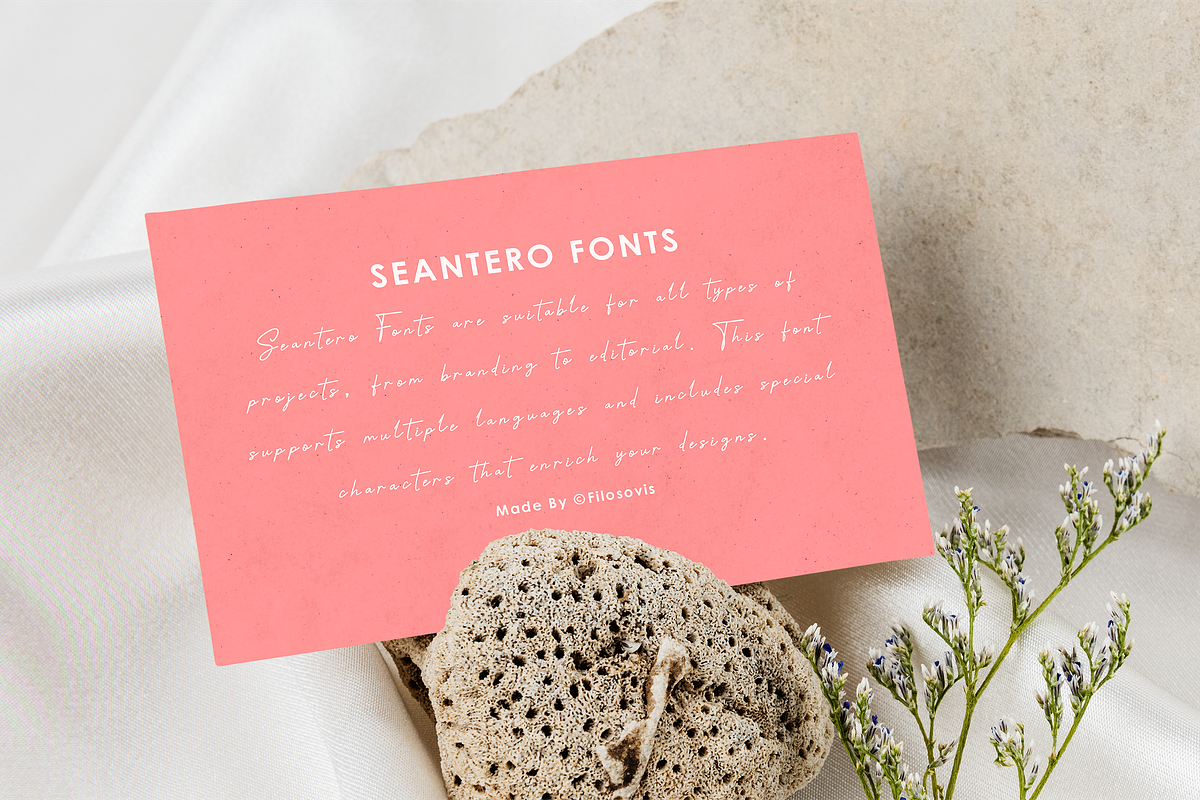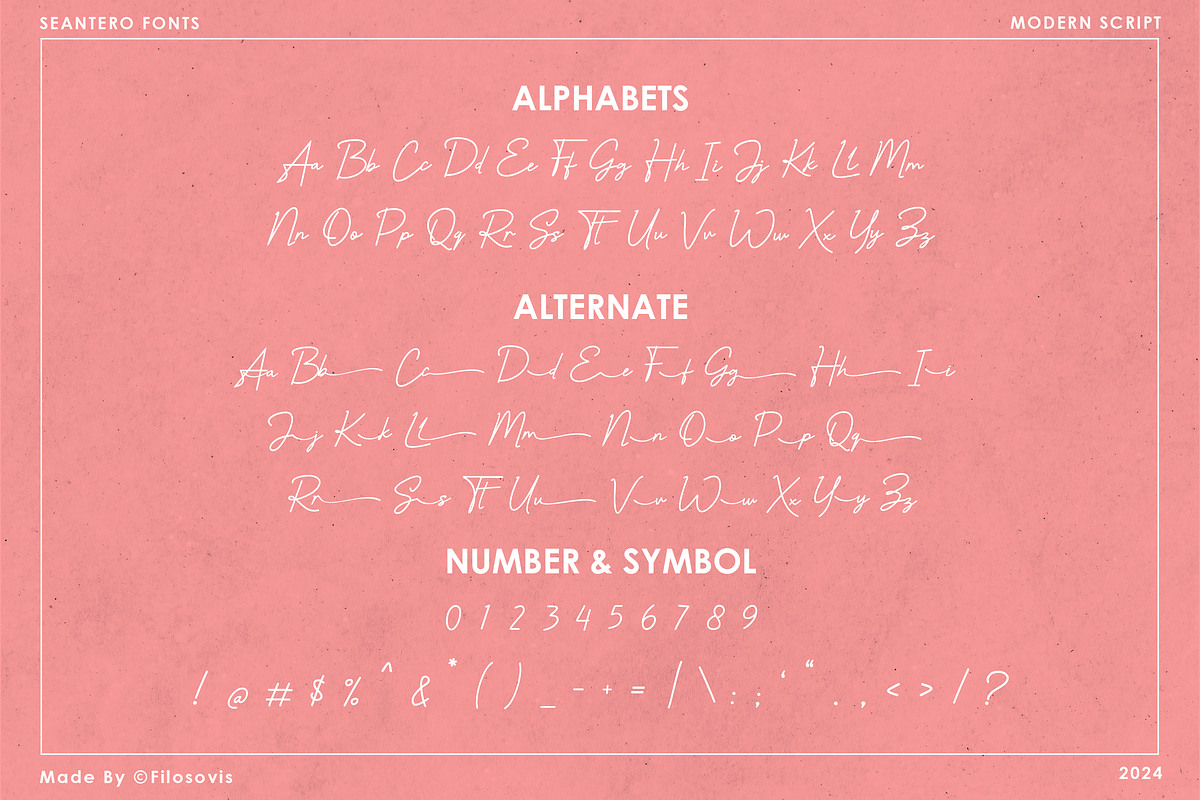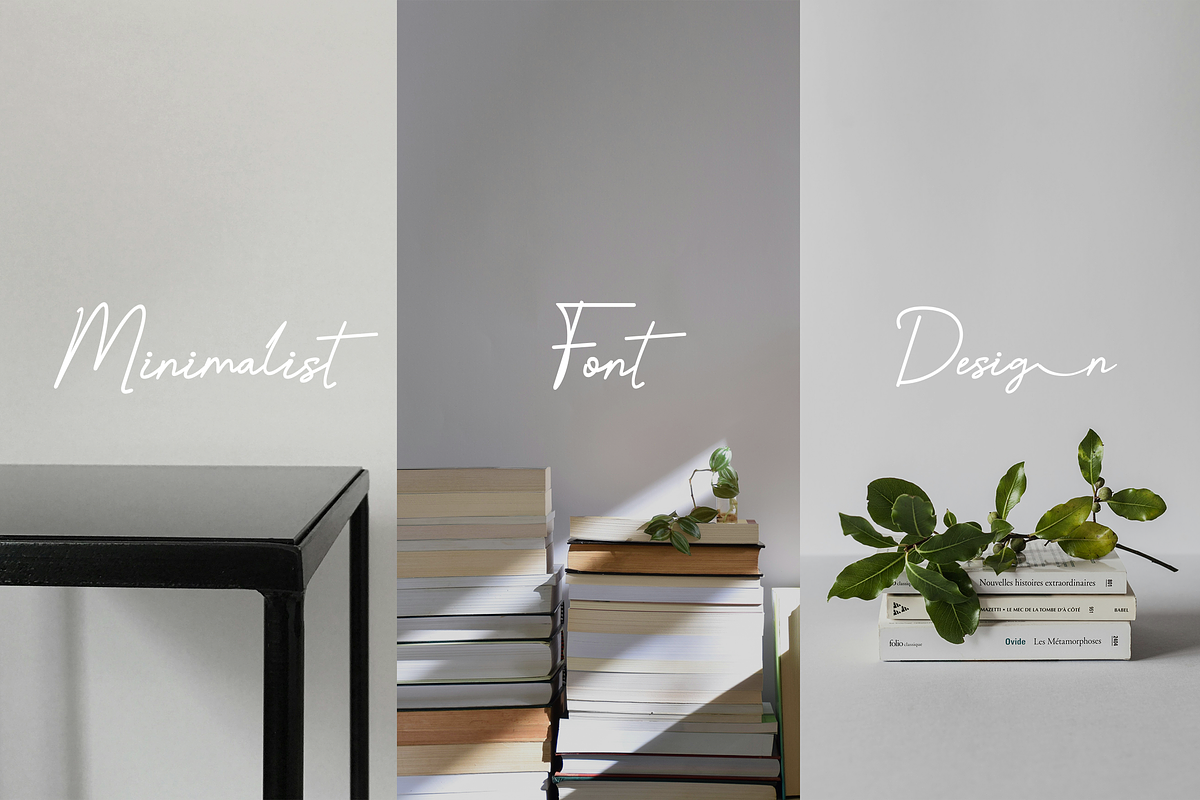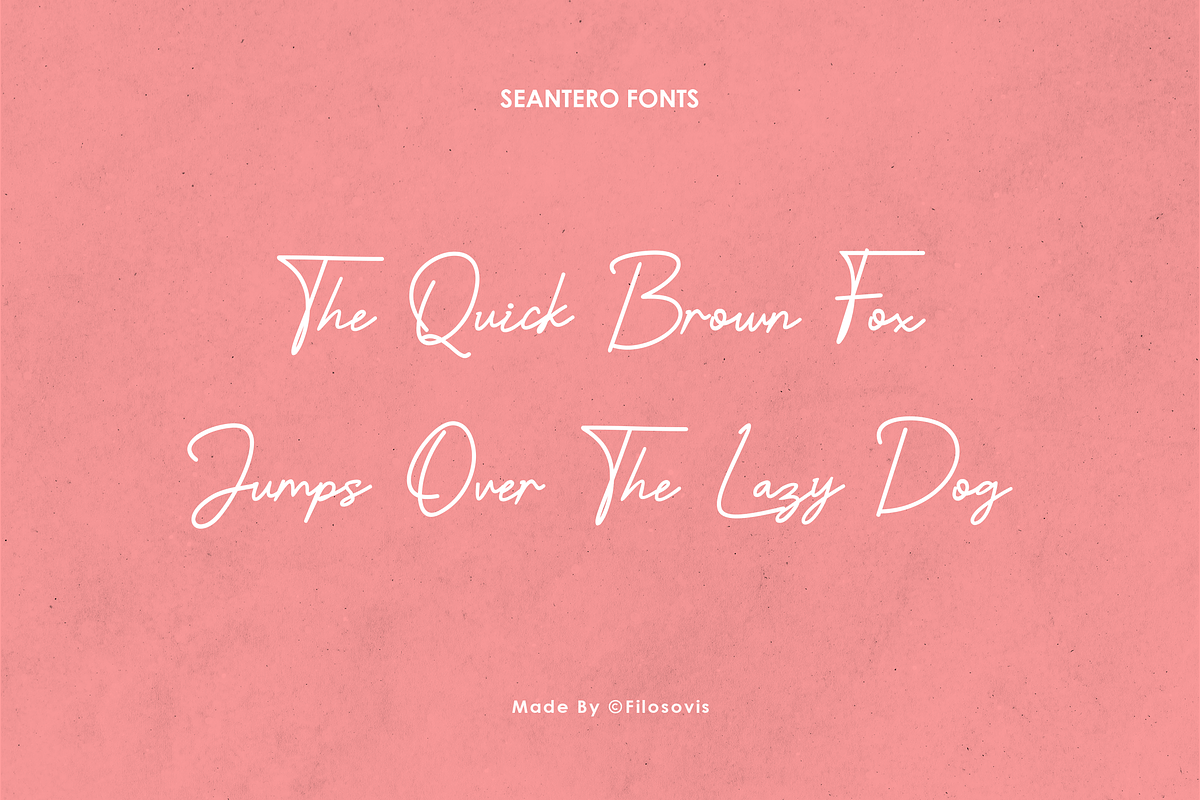
Seantero | Modern Script Font
Seantero is a modern script font that adds a playful twist to any design. With its whimsical letterforms and unique charm, it's perfect for eye-catching headlines, vibrant posters, and playful branding projects. Infuse your creations with joy and personality with Seantero!